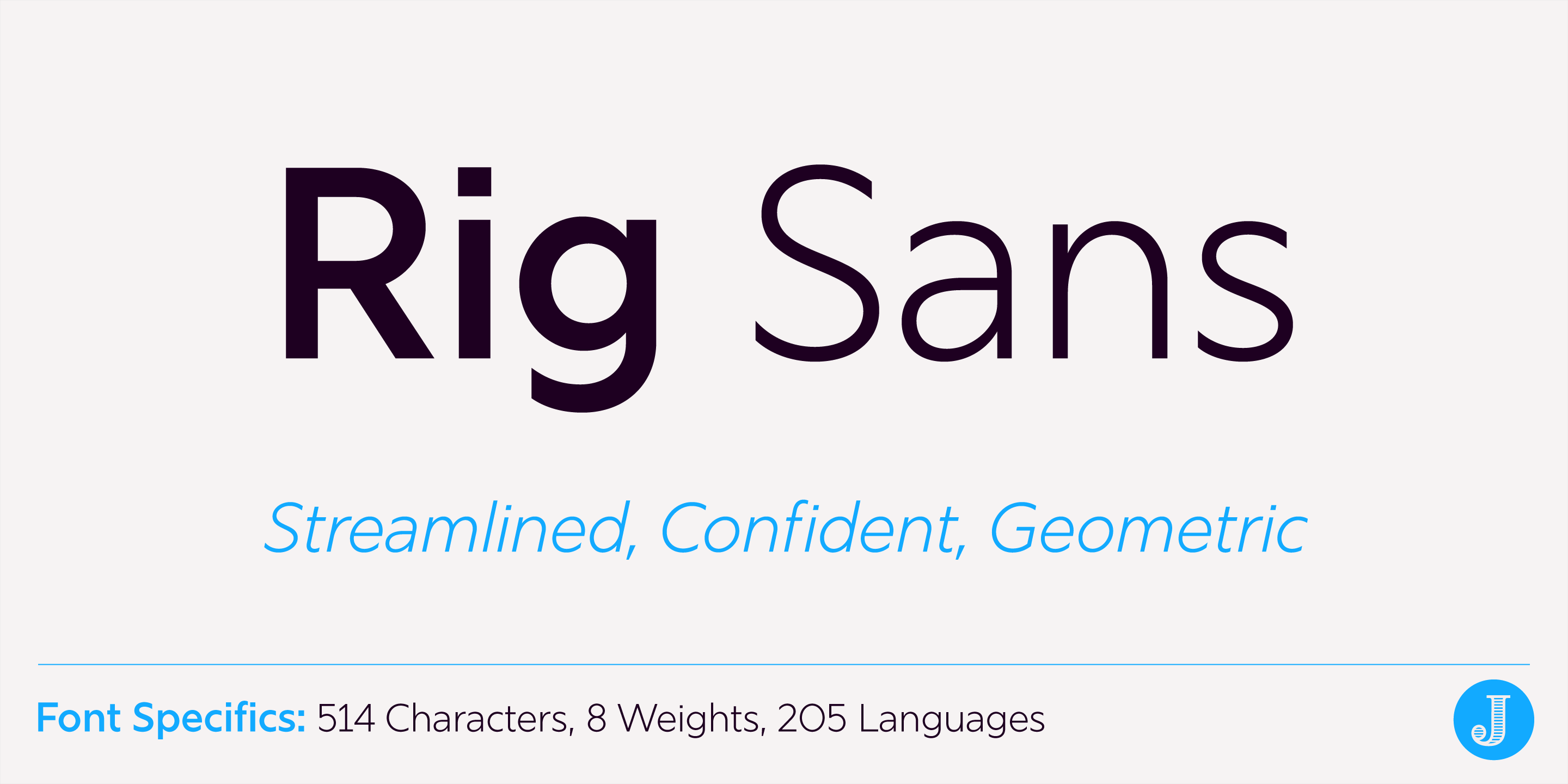
Rig Sans Font is ideal for tech startup branding, modern app interfaces, digital platform designs, innovative company logos, contemporary web applications, cutting-edge marketing materials, fintech communications, software documentation, startup pitch presentations, and progressive corporate identities. This versatile sans-serif typeface brings clean functionality and technological sophistication to forward-thinking design applications.
What makes Rig Sans Font so exciting is its perfect synthesis of technical precision and human-centered design that reflects the best principles of contemporary user interface and digital product development. The font features carefully engineered letterforms with optimized proportions and mathematical precision that ensure exceptional performance across all digital platforms and devices. Its distinctive characteristics include consistent stroke weights, generous character spacing, and refined geometric construction that create superior screen readability while maintaining the clean, professional appearance that modern technology brands demand. The font's technical excellence and contemporary aesthetic make Rig Sans Font essential for companies seeking to project innovation, reliability, and user-focused design philosophy.
The Rig Sans Font family includes comprehensive weights and styles: Thin, Light, Regular, Medium, Bold, and Heavy variations, each optimized for digital applications. The extensive character set encompasses complete Latin alphabet support with technical symbols, coding characters, mathematical operators, currency symbols, and broad international language coverage including extended Latin characters. Professional features include contextual alternates optimized for user interfaces, precise spacing for screen readability, clear character differentiation for accessibility compliance, and technical adjustments that ensure consistent performance across different operating systems and devices.
Whether you're designing digital products, tech brand identities, or modern corporate communications, Rig Sans Font Free Download provides the reliable typography foundation that supports exceptional user experiences and professional brand presentation. Its exceptional screen optimization makes it perfect for software interfaces, mobile applications, and digital communications, while its clean aesthetic ensures timeless appeal that adapts to evolving technology trends. The font's combination of technical functionality and contemporary design makes it invaluable for UX designers, tech companies, and digital agencies seeking typography that genuinely enhances user interaction while communicating the innovation, precision, and user-centered values that define excellence in modern technology design.